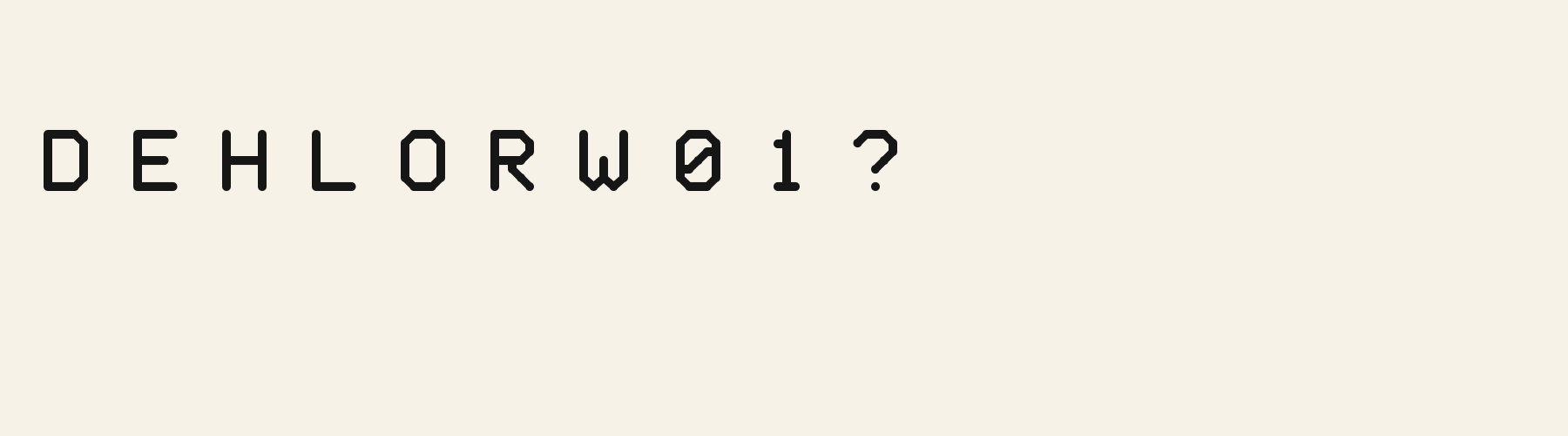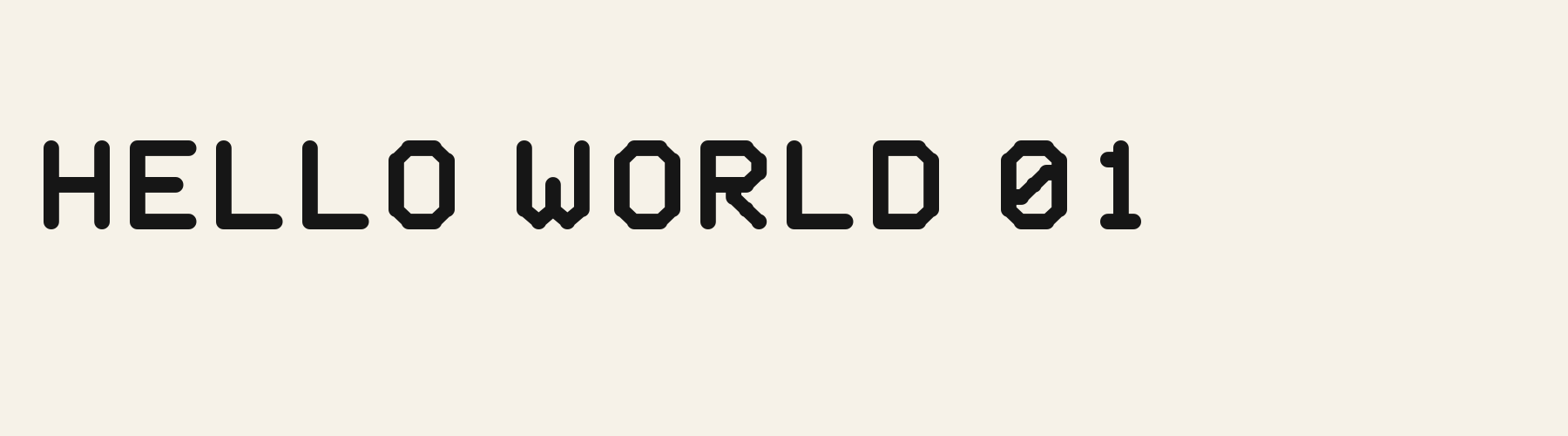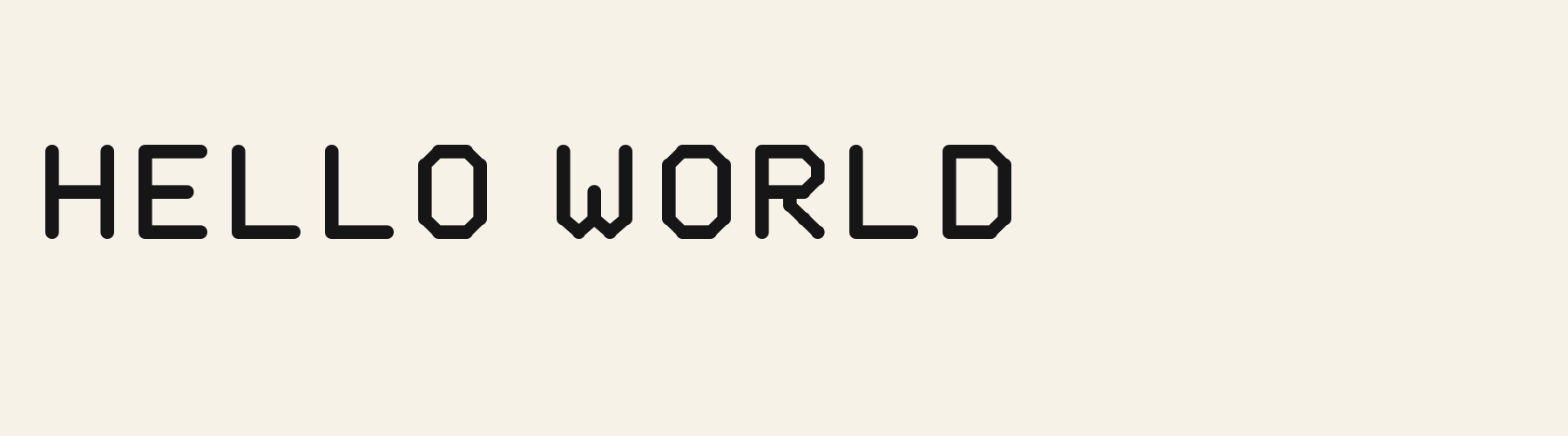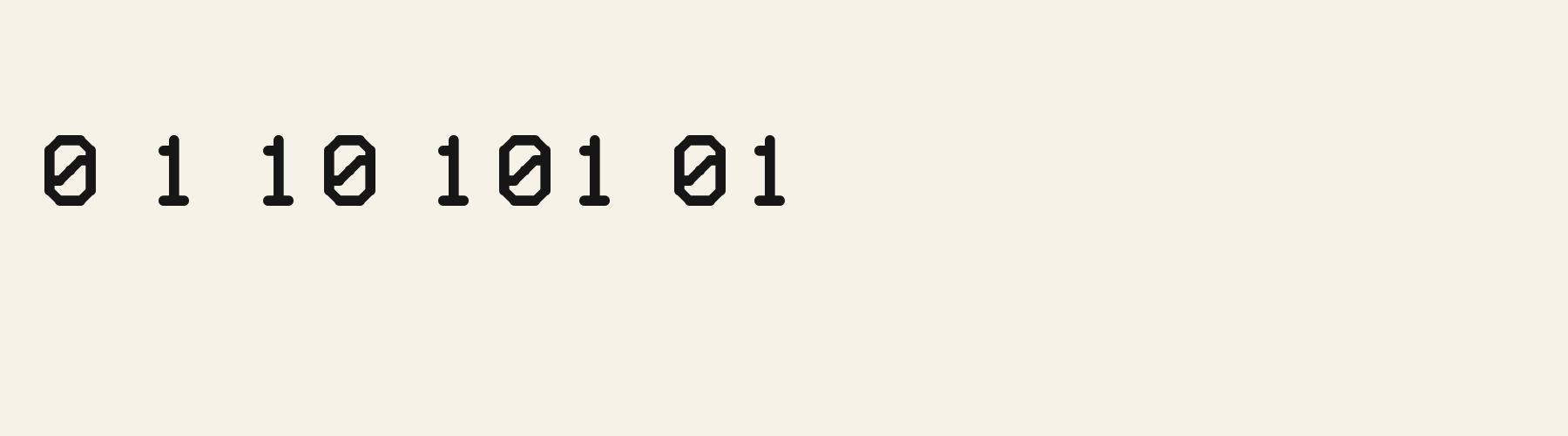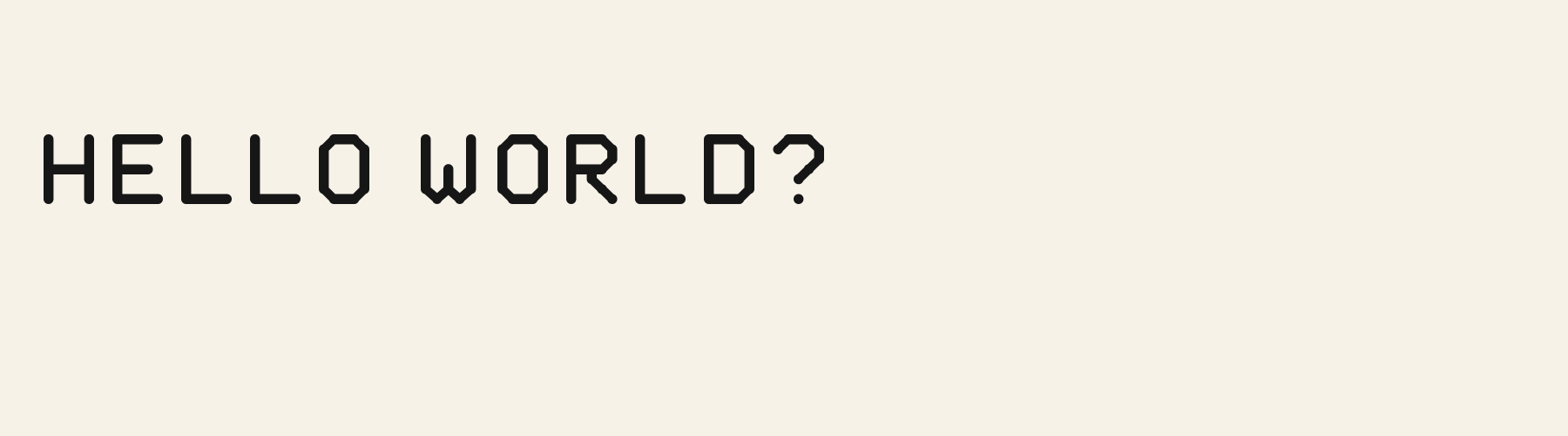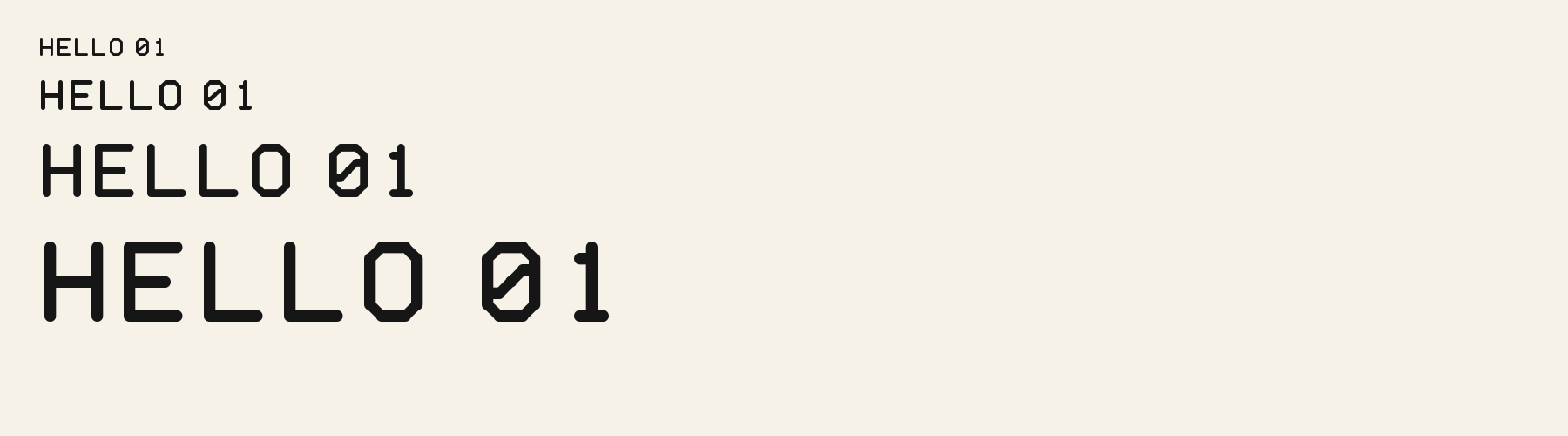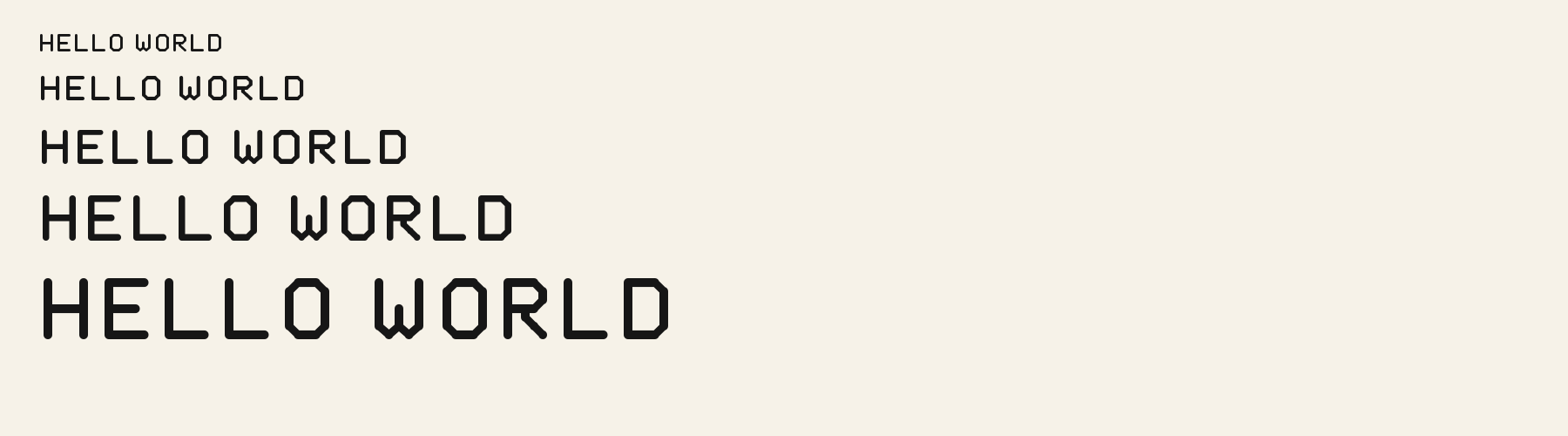
Rounded Soft Block Octagonal Ring Roundcap Font
Rounded Soft Block combines straight, even strokes with circular ends and clipped corners.
Octagonal Ring Roundcap Letterforms
Rounded Soft Block combines straight, even strokes with circular ends and clipped corners. The O is an octagonal ring: its outer contour and inner counter both have flat tops and diagonal corners. The R carries that angular construction into its upper bowl, then sends a diagonal leg down to a rounded tip. The W has tall outer stems, paired low valleys and a shorter central upright with a round cap. Broad letter shapes and open spacing give the capitals an easy, playful rhythm, while the flat edges keep the lettering orderly rather than inflated.
Inspect repeated L forms, the W valleys and the distinction between O and the slashed zero in your actual wording. These specimens establish Latin capital details; preview lowercase, accented Latin and any other scripts separately before approving the full composition.
Try this face for short headings, with a restrained sans serif handling descriptions and supporting labels. Its broad capitals, angular rings and circular endings already supply strong detail, so a companion with quieter contours could keep longer text easy to scan.
Rounded Soft Block: letterforms and layout
Compare the original spacing with a slightly wider setting. The repeated L forms create open spaces above their feet, while O encloses its space; check whether added tracking makes the uppercase phrase feel fragmented.
For this uppercase phrase, Rounded Soft Block offers plain stem endings and continuous, uncluttered joins. Its octagonal O and angular W give the lettering a geometric rhythm, with round caps softening the exposed ends.
Rounded Pill Display's uppercase alphabet shows projecting rounded feet on H and small rounded protrusions around O's corners. Choose it when those visible joint details suit the wording; try Rounded Soft Block when simpler endings better support the composition.
Poster. The broad capitals and clipped O corners give a short greeting a clear geometric rhythm across a poster. HELLO
Product label. Round stroke endings soften this short label, while the flat edges of E and L keep its shape orderly. WOW
Sticker. The paired valleys of W frame the octagonal O, giving a compact sticker a distinctive repeating shape.
The scenes are illustrations drawn on this page with Rounded Soft Block itself, not client work.
About Rounded Soft Block
The x-height is a compact 71.5% of the cap height, below the 74.4% median for display fonts, lower than 82 of the 116 other display fonts. Ascenders on b, d, h, k and l line up with the capitals (100% of their height), and descenders on g, j, p, q and y drop 28.5% of the cap height below the baseline, deeper than 97 of the 116 other display fonts. It sets wide: an average lowercase letter, spacing included, is 99.2% as wide as the capitals are tall (an average capital, 99.8%), 13.9% more than the median for display fonts, so the same words take a longer line. The o is close to a circle, 1.03 times as wide as it is tall, and M and W are the widest capitals, at 1.12 times the width of H. O stands exactly as tall as H and sits on the baseline, with no overshoot.
The letters stand upright, leaning less than 2.5° either way. Vertical stems measure 14.5% of the cap height, lighter than 52 of the 58 other display fonts. Ink covers 28.3% of each lowercase letter's box (its advance width by the cap height), lighter than 97 of the 116 other display fonts. Strokes keep one thickness in every direction: the sides of o and O measure the same as their tops and bottoms. Rounded Soft Block comes in Regular and Bold; Bold puts down 22% more ink than Regular.
Its 159 characters include 116 Latin letters, plus 43 figures, punctuation marks and symbols; 64 of the Latin letters are accented or special forms beyond A to Z. The word space measures 48.3% of the cap height, and the blank space either side of a lowercase letter takes up 29.9% of its width. The font carries no kerning, so spacing comes from each letter’s own side bearings. All ten figures share one width, so columns of numbers line up.